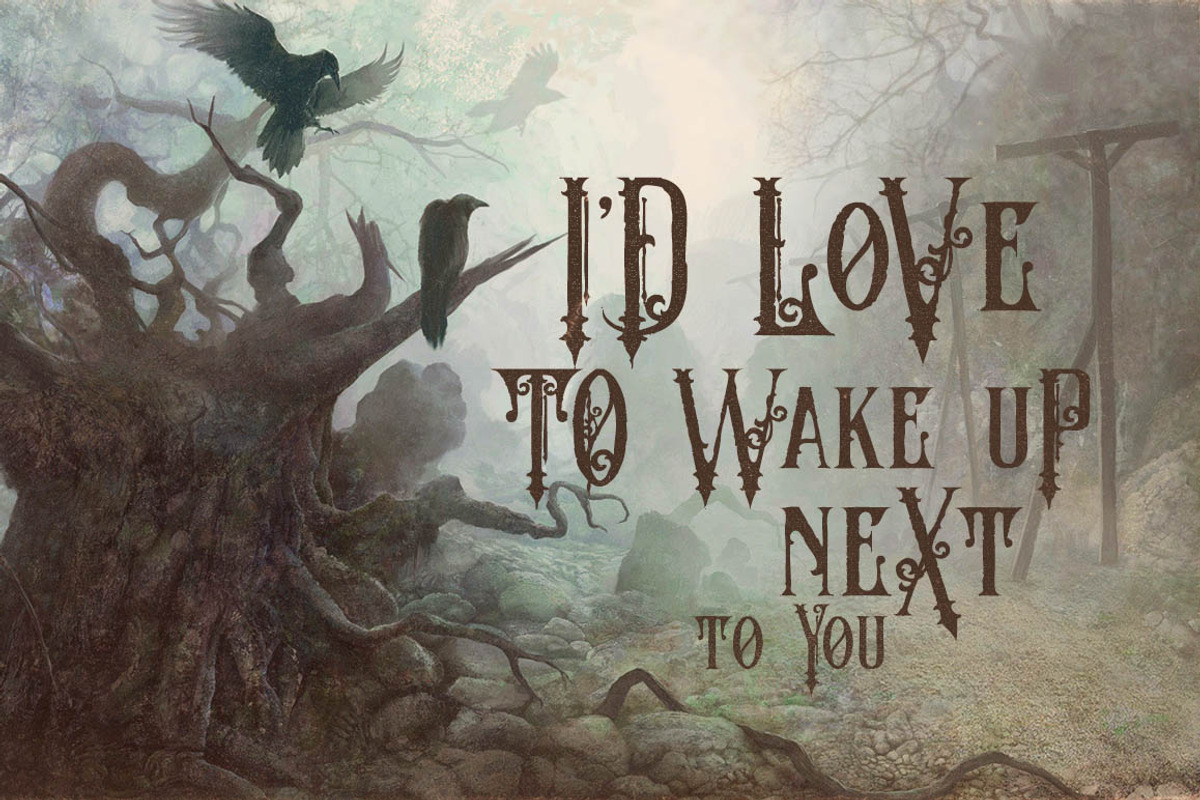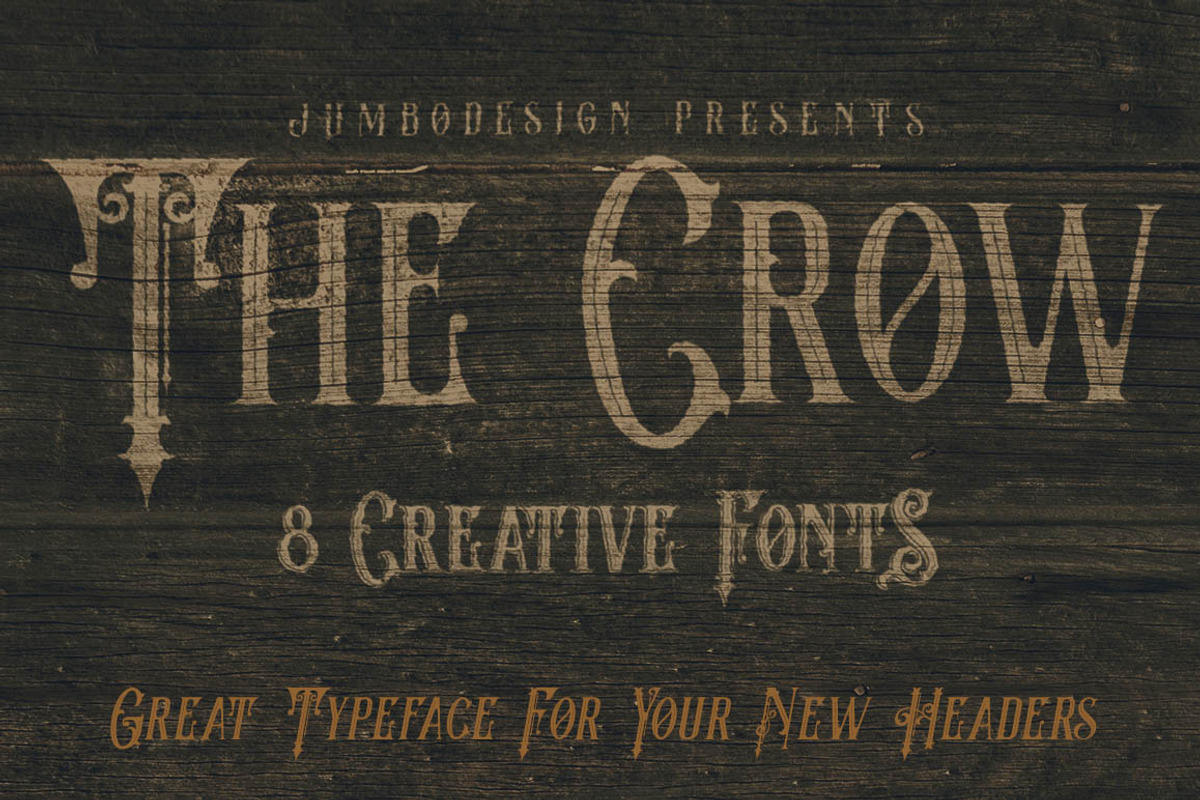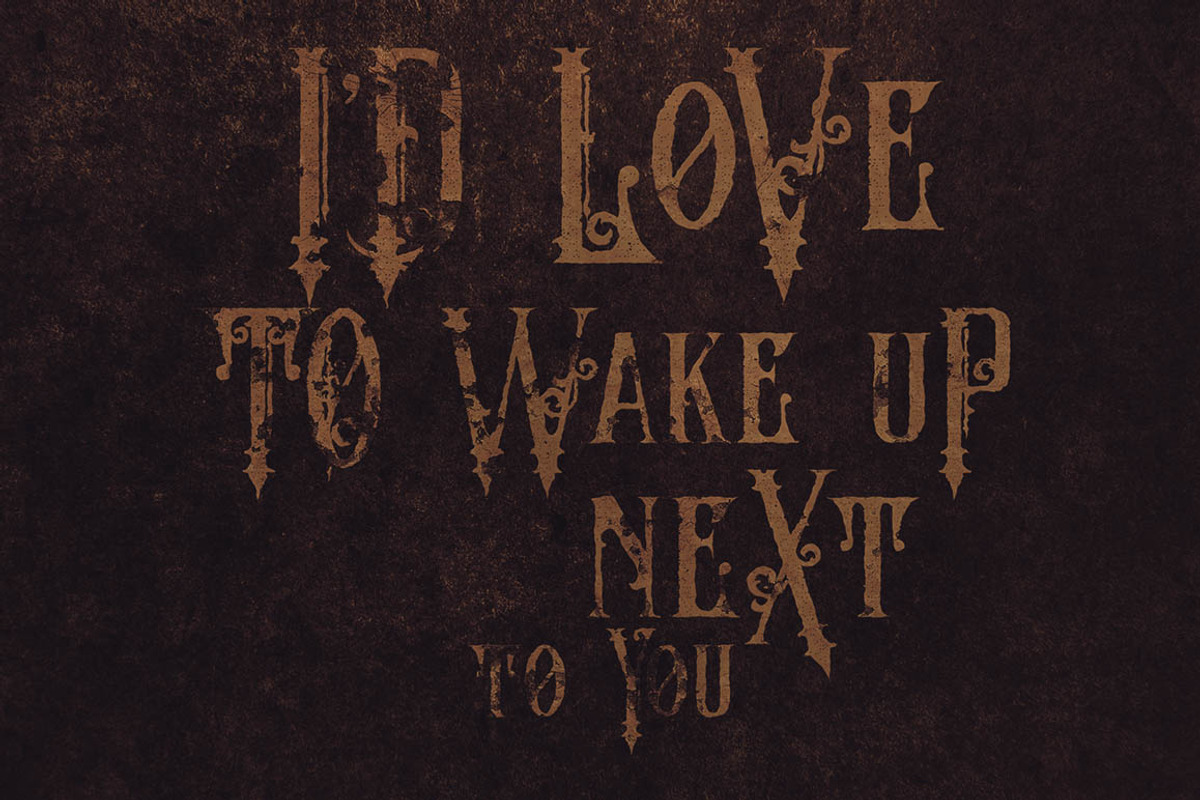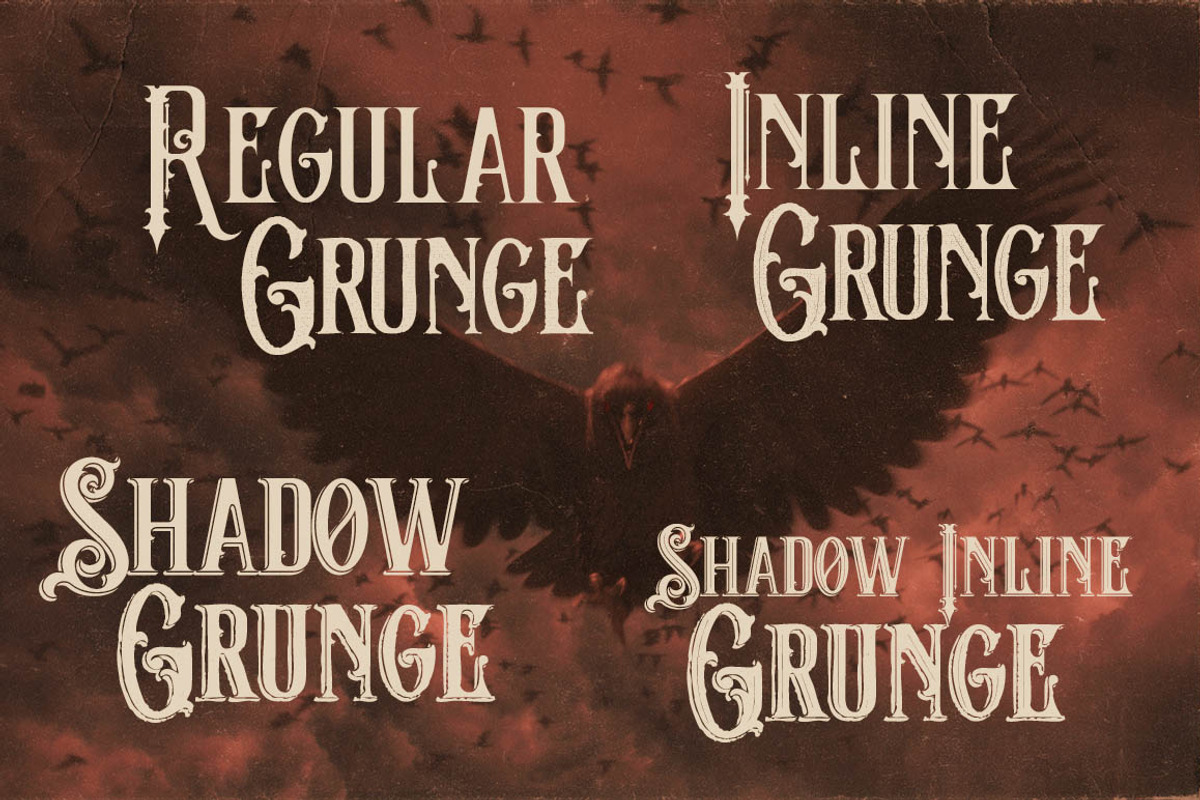
The Crow - Vintage Style Font
The Crow - Vintage Style Font by JumboDesign is a font selected for branding, posters, packaging, typography.
Why The Crow - Vintage Style Font is worth a look
The Crow - Vintage Style Font by JumboDesign fits naturally into Branding, posters, packaging, typography.